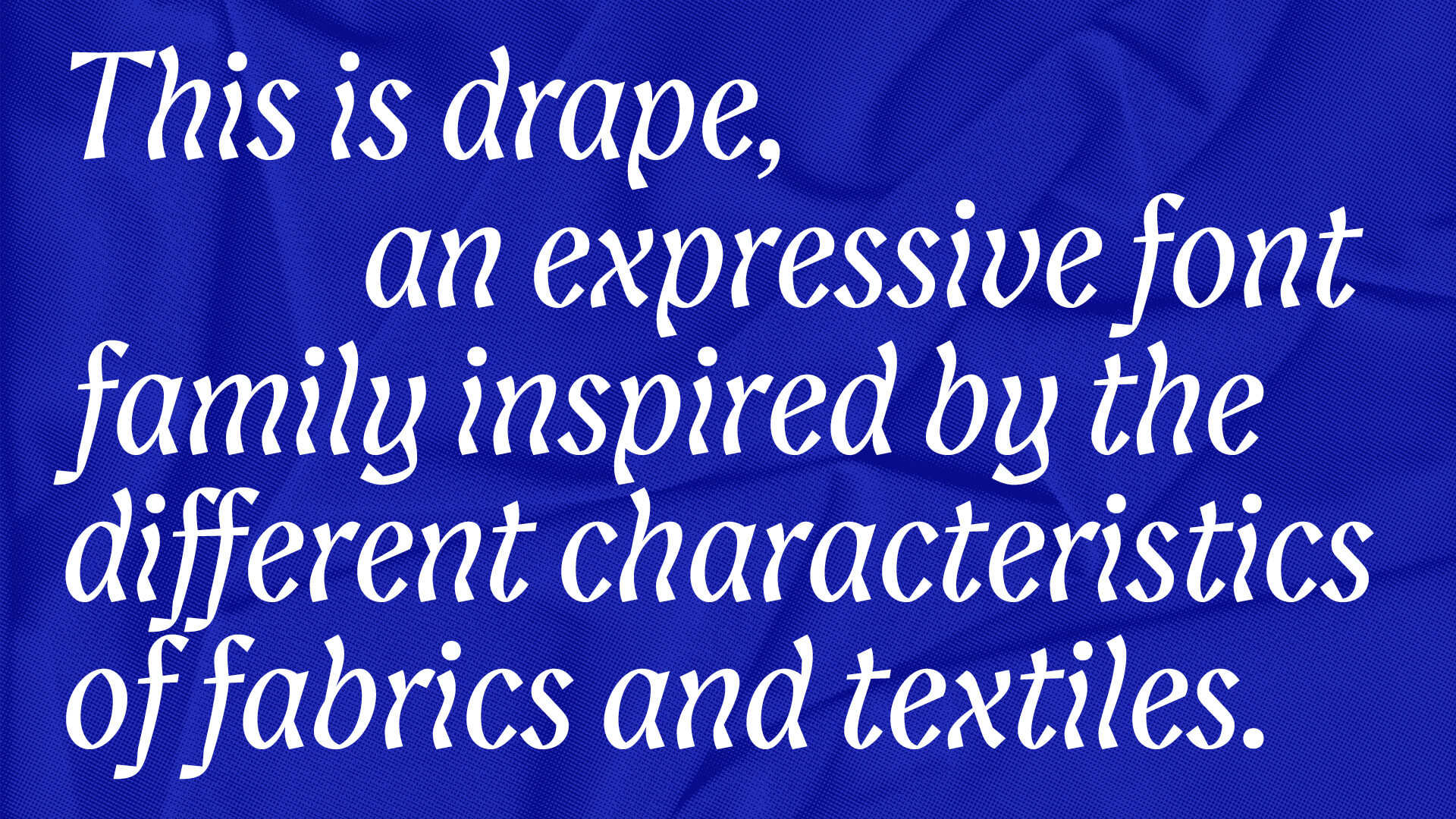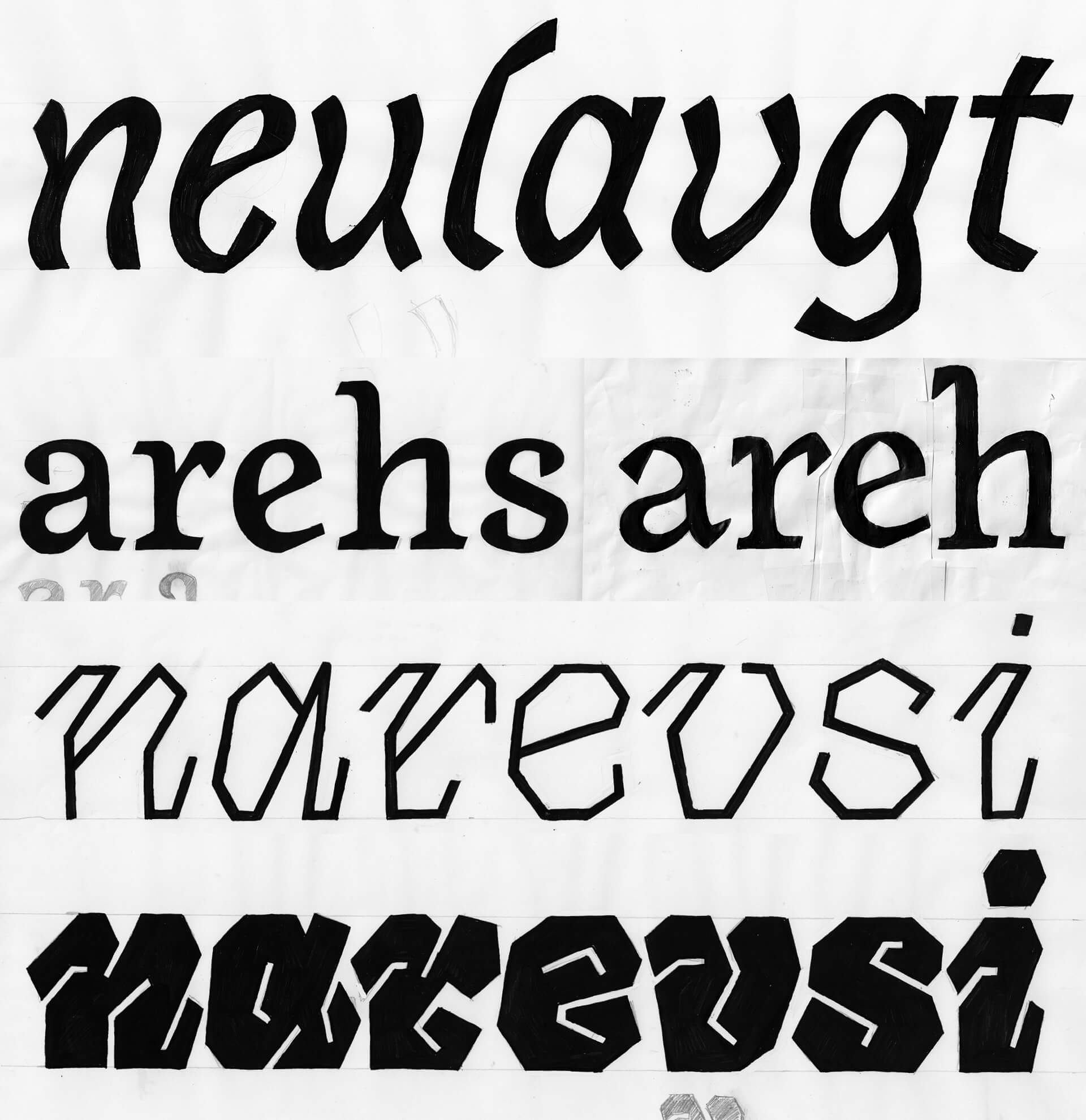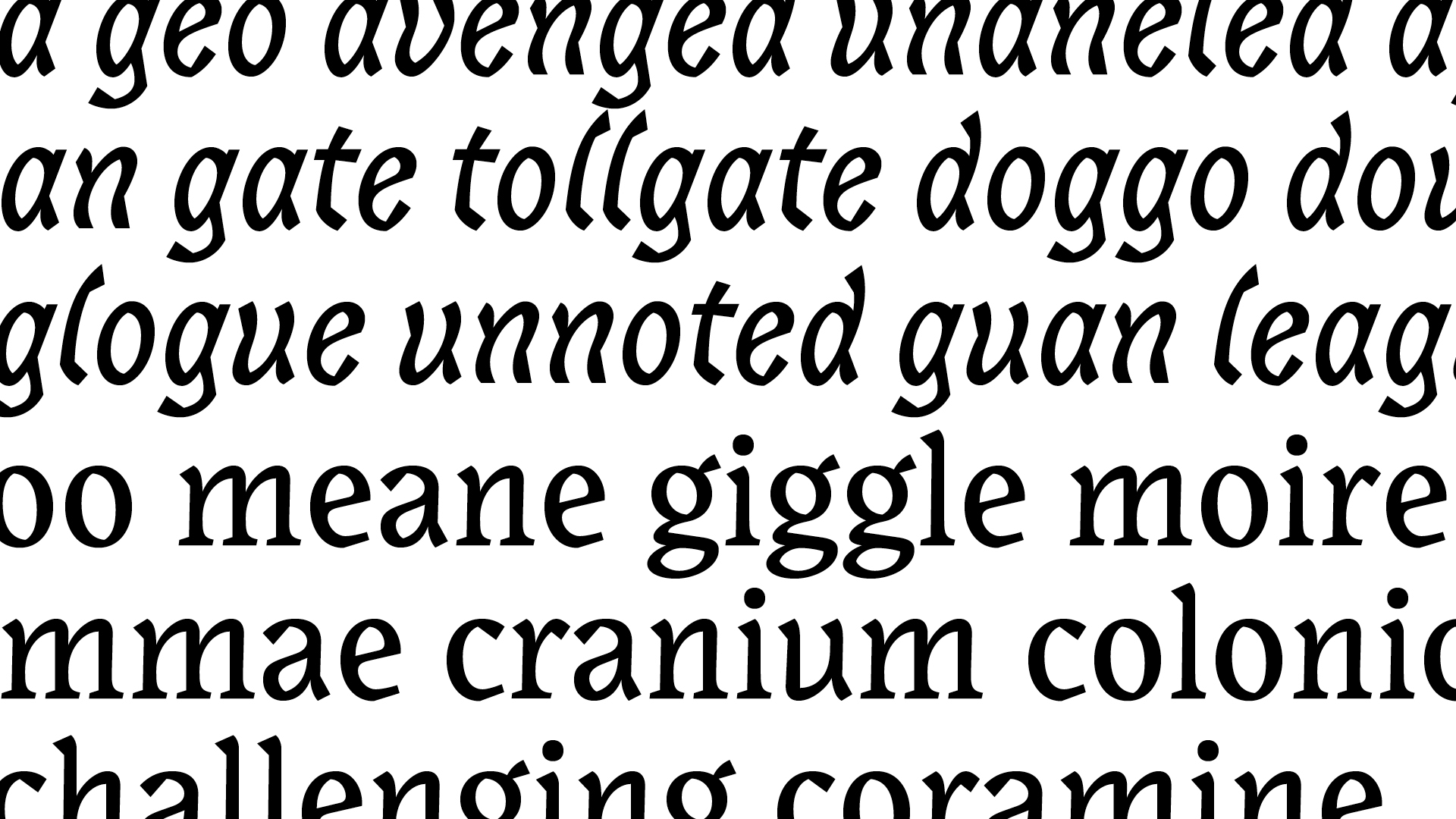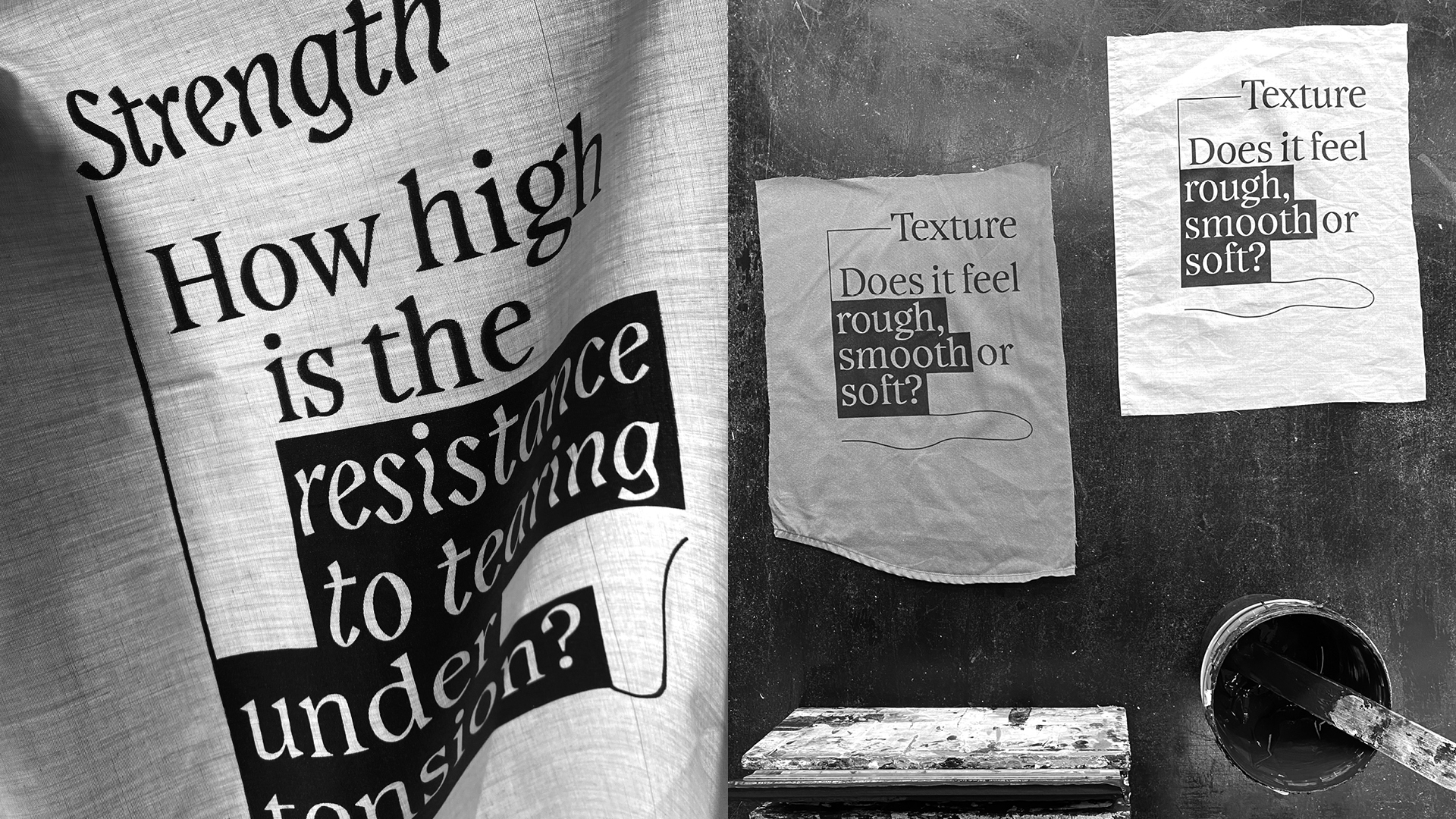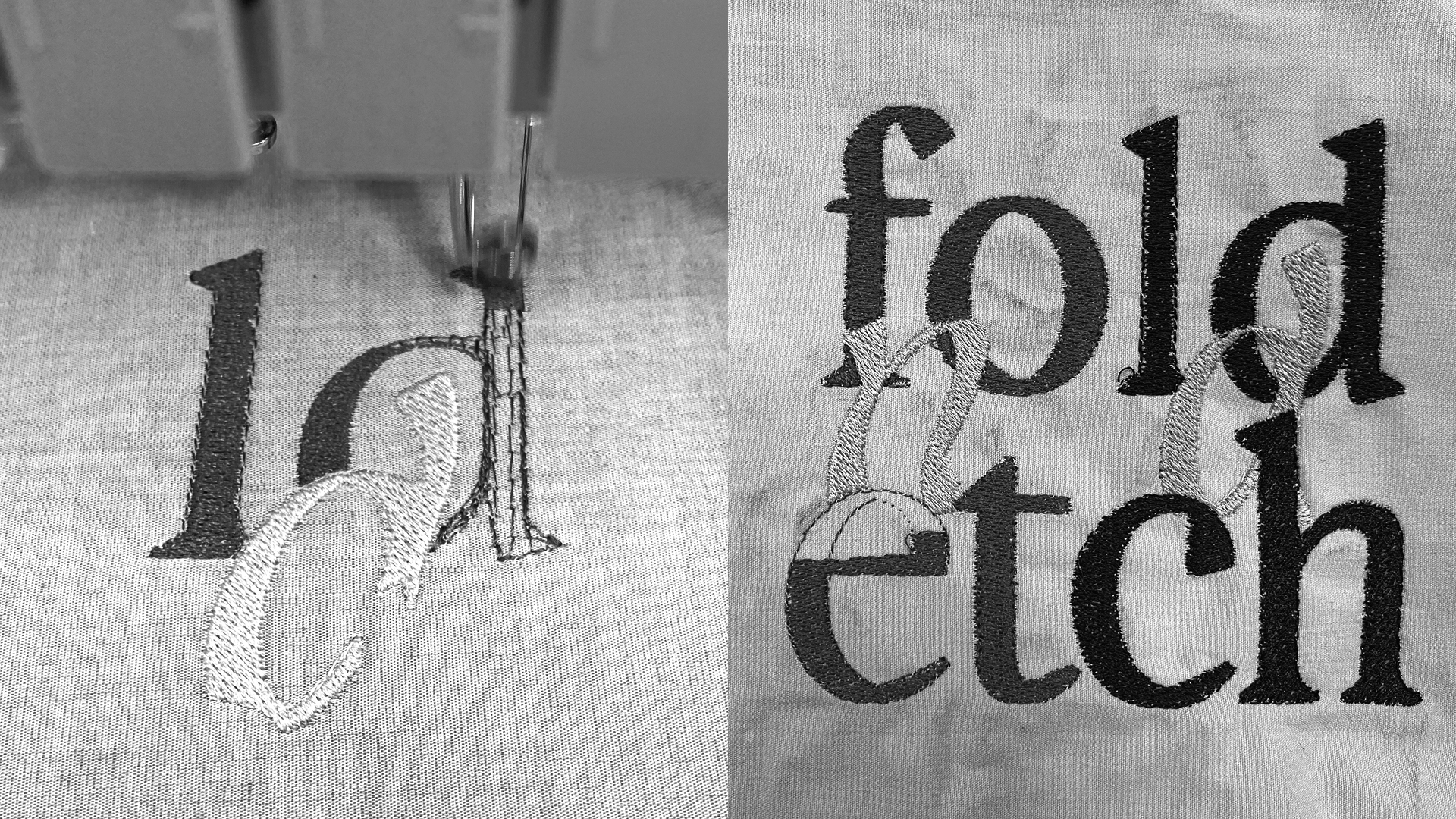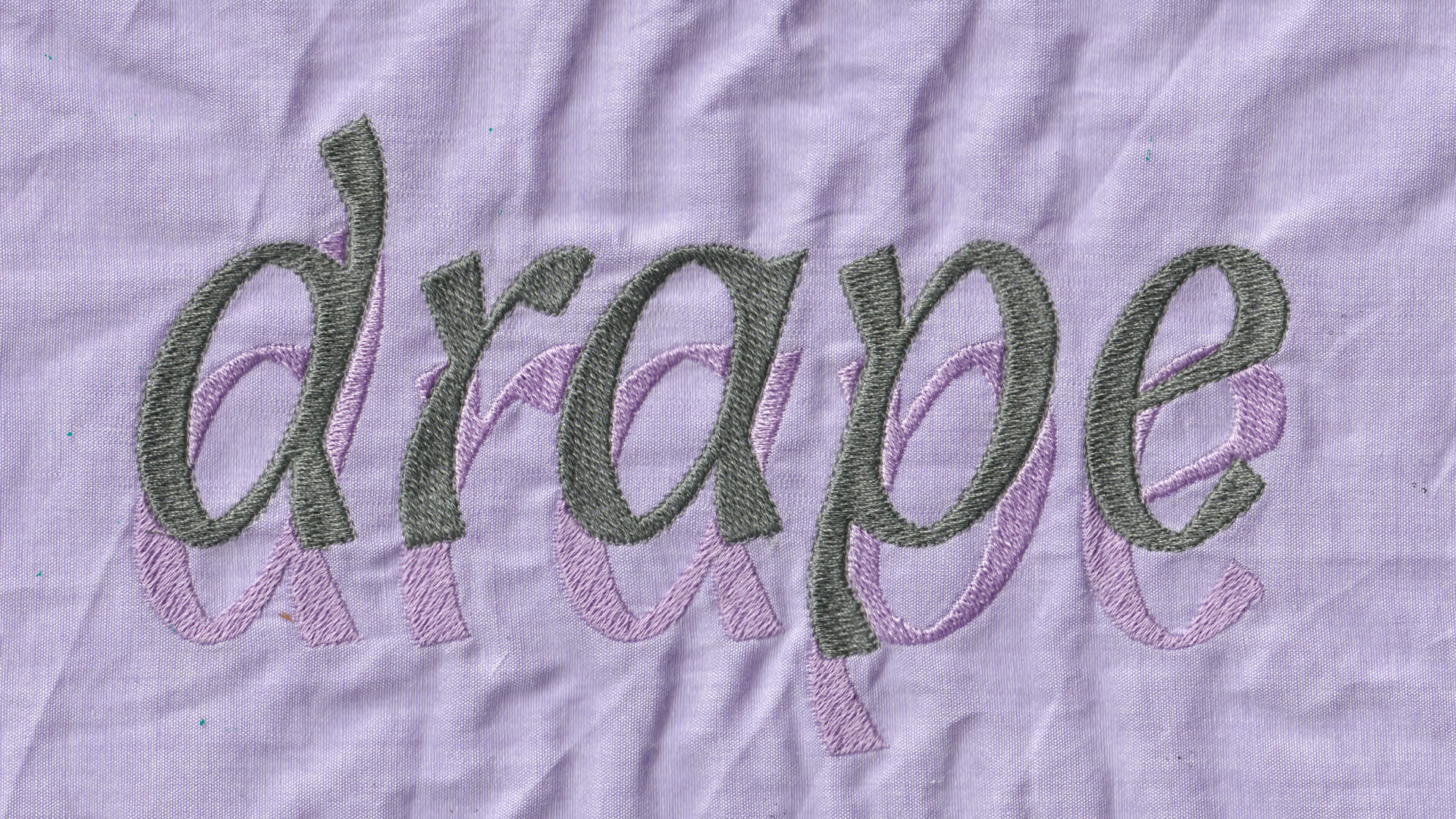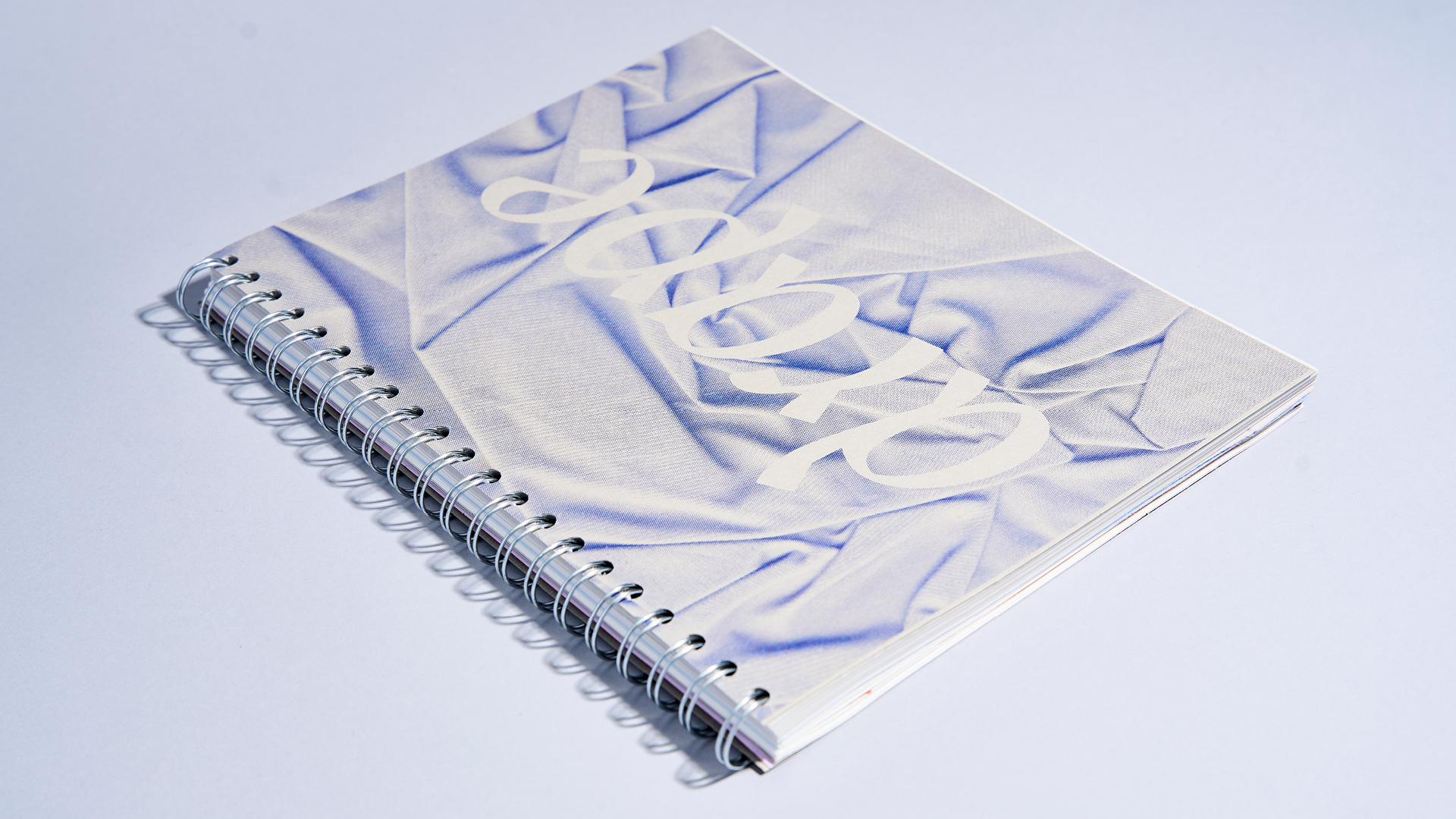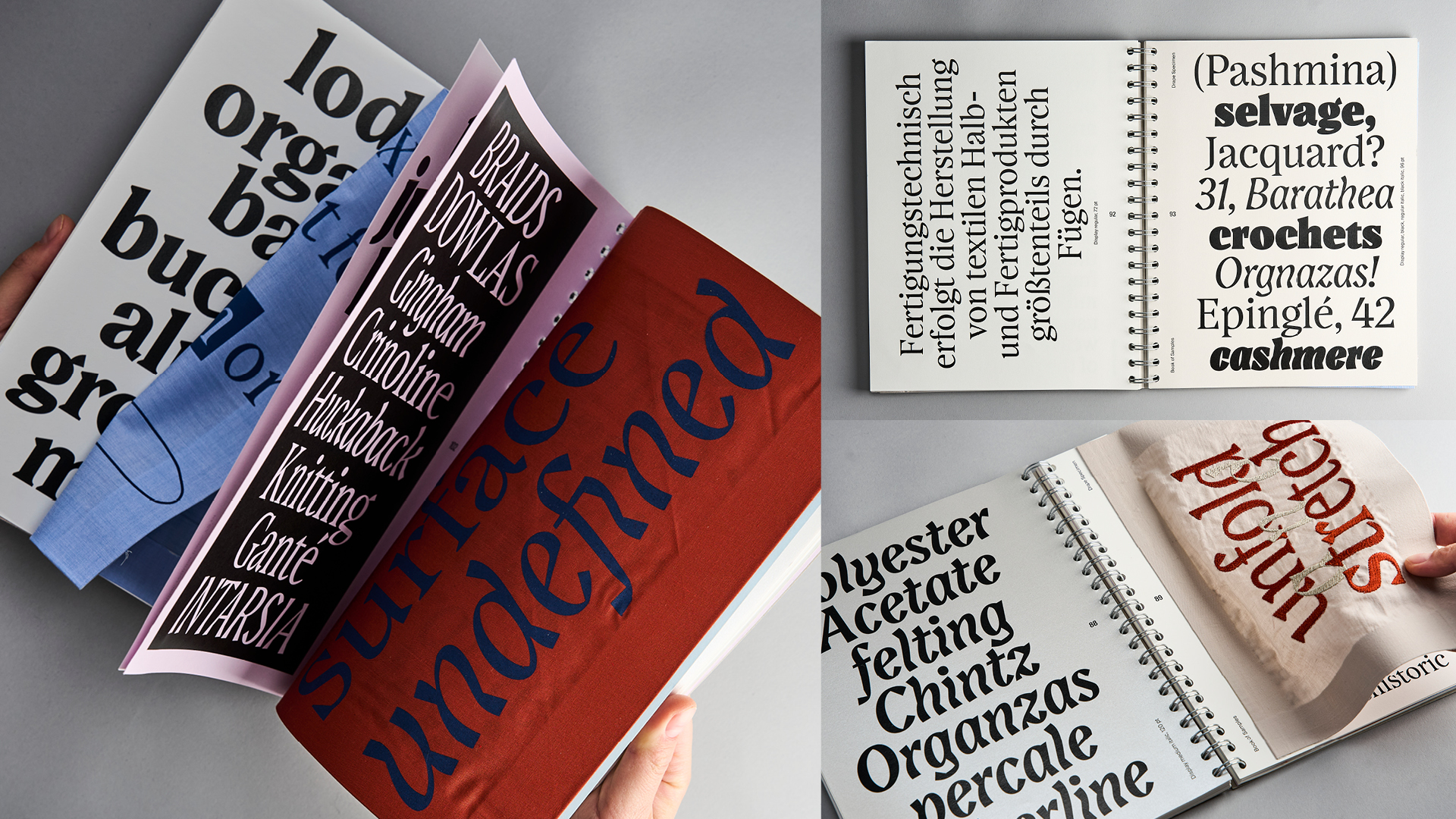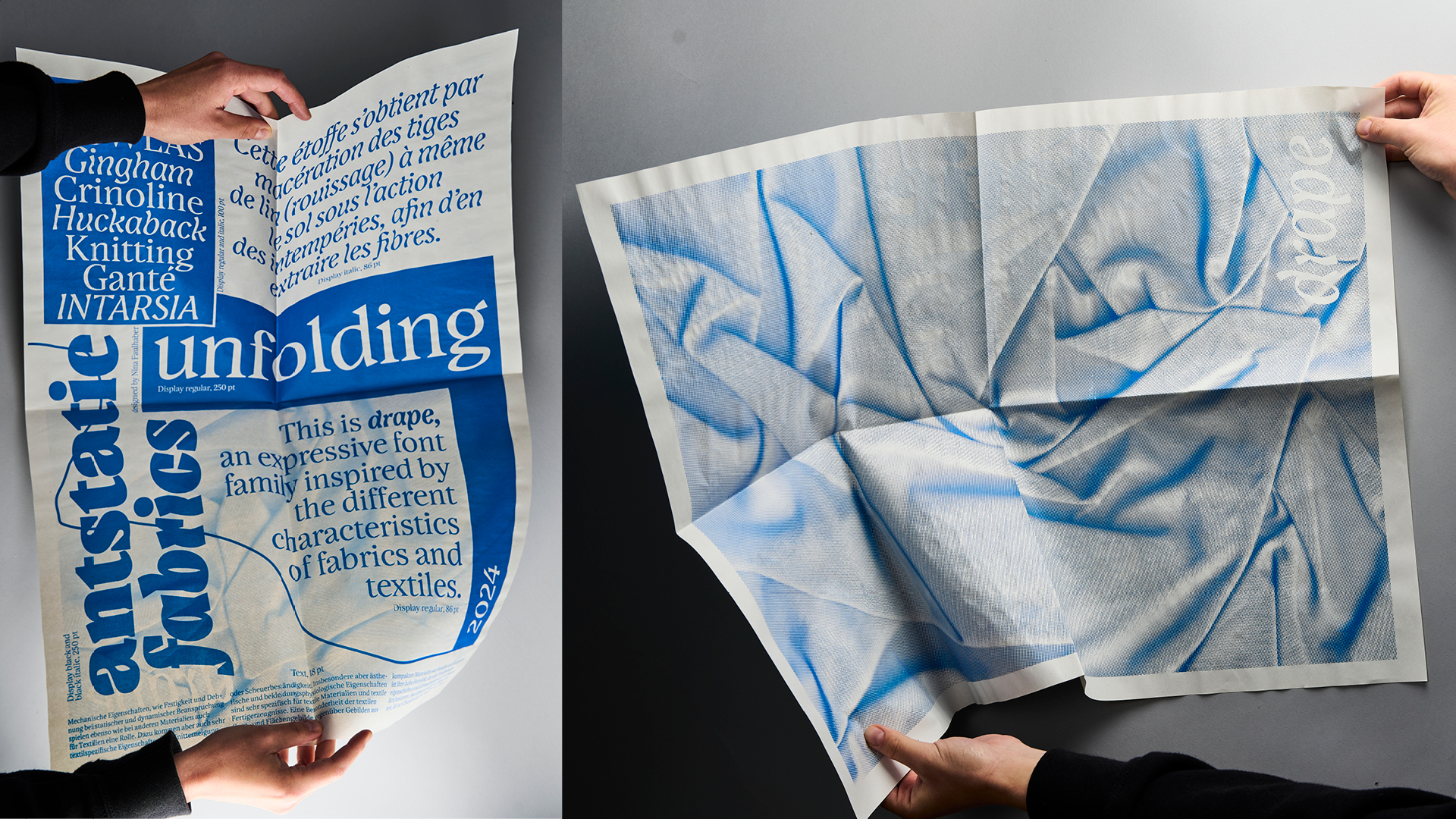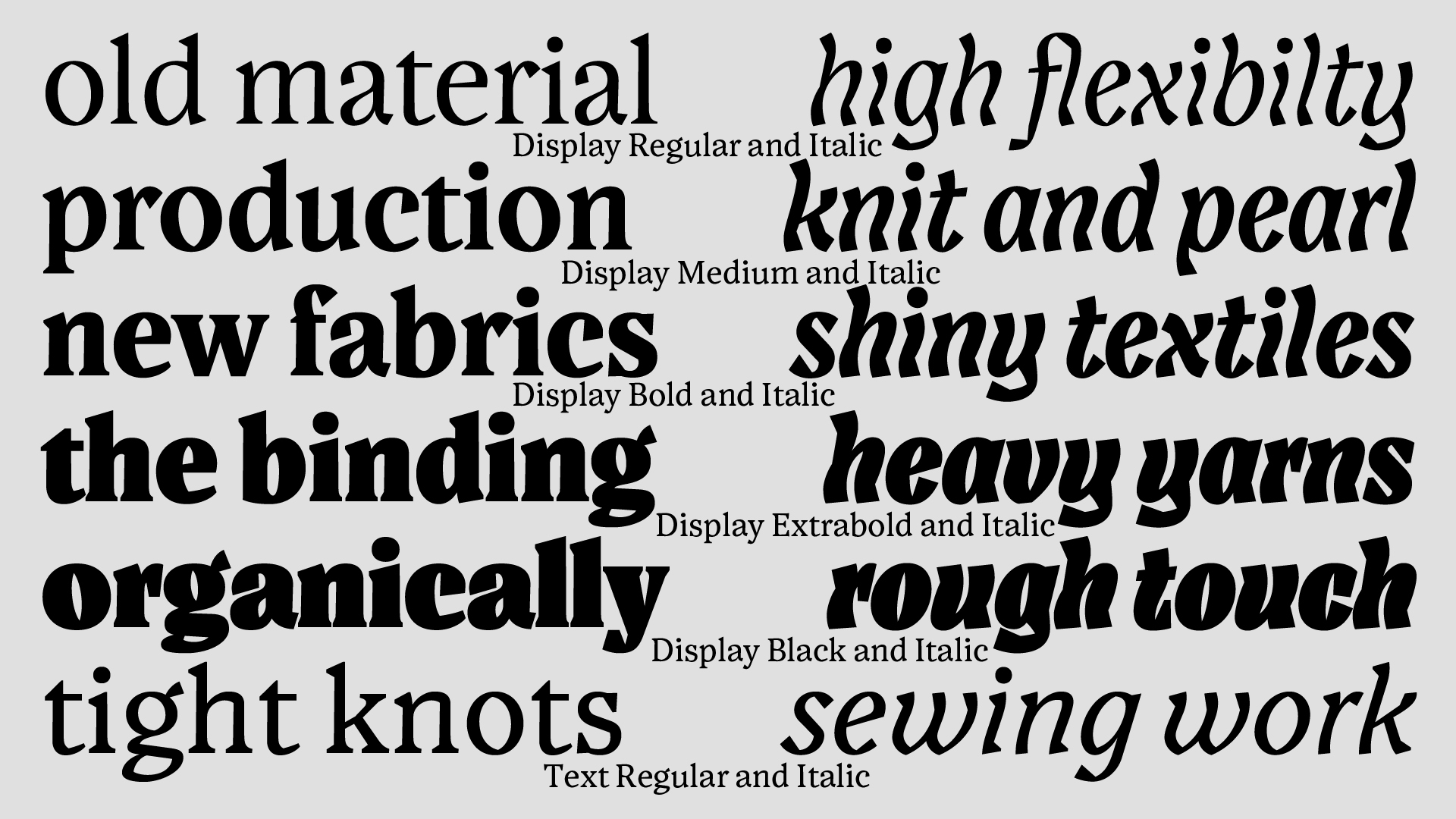
Drape is an expressive type family inspired by the different characteristics of fabrics and textiles. Its distinctive shapes and dynamic texture make the typeface most useful for display applications. Since the structure of the Roman (more stiff and stable) and Italic (more fluid and flowing) is quite different while maintaining the same energy, Drape creates a distinct appearance in use. The six display weights in Roman and Italic are accompanied by two Text styles.
Although I usually feel very comfortable while designing text typefaces,
I decided to challenge myself by starting the process of the final project with a display design.
I developed a concept that focused on fabrics and textiles and the differences that could be
found in their characteristics:
light ↔ heavy
stiff ↔ fluid/flowy
defined ↔ undefined surface
rough ↔ slick
coarse ↔ elegant
These provided a good starting point for quicker and later more defined sketches.
The starting point was a lively italic design, from wich I developed the upright
companion. Digitizing the very expressive analogue sketches proofed difficult at
first and required many refinement steps. Right from the beginning of the process
it was very important to me to also produce some actual objects, not just files,
and to be inspired by the material itself. I explored various analogue techniques
to apply my design to / in fabric, such as embroidery or silk screen printing, and to
document the process and result. I was attracted to the idea of actually being able
to hold the typeface in my hands and experience it haptically, so that it would feel
more real and less abstract.
With its six variable Display weights in Roman and Italic and two matching Text styles, the Drape Type Family offers a good selection for various applications. The expressive display styles create striking impact wether inheadlines, text or logo type, while the sturdier and calmer Text styles make a good fit for longer paragraphs, still maintaining the expressive character even in small sizes.